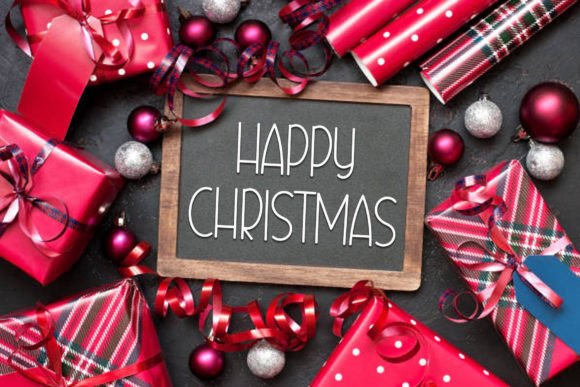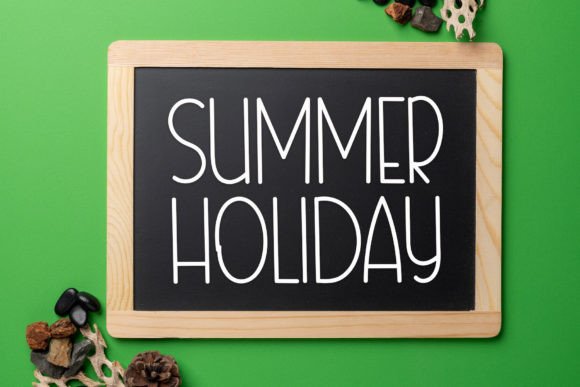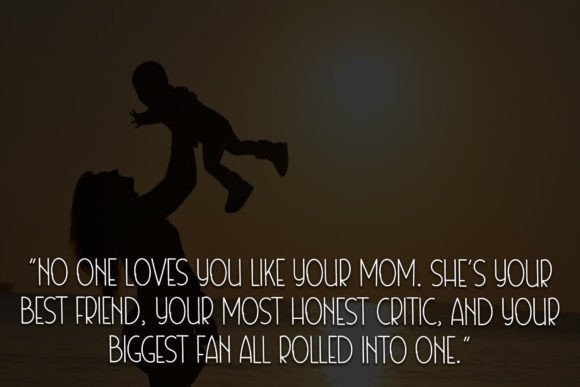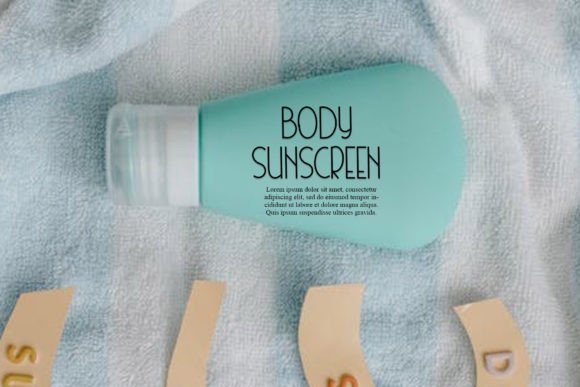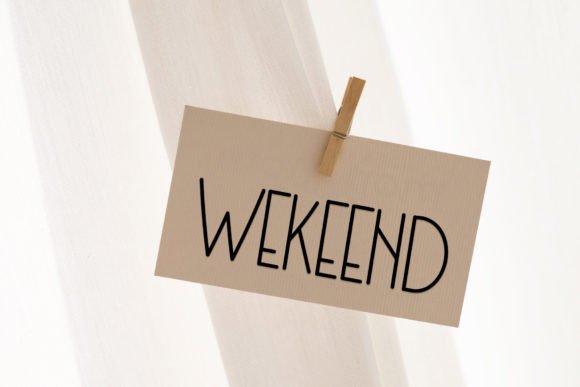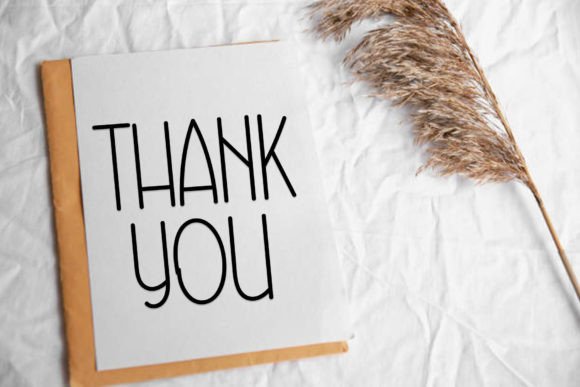
The Heroic Font: Elevating Your Designs with Elegance and Charm
I’ll never forget the moment I stumbled upon the HEROES font. I was working on a wedding invitation project, and my client was adamant about finding the perfect font that exuded elegance and sophistication. As I scrolled through my font library, I felt like I was searching for a needle in a haystack – until I saw HEROES. Its fluid strokes and natural flow captivated me, and I knew I had found the one. In this article, I’ll share my experience with the HEROES font, its features, and how to make the most of it in your designs.
- ✨ Elegant and sophisticated look that’s perfect for high-end designs
- ✅ Fluid strokes and natural flow that create a captivating visual effect
- 💫 Versatile and suitable for various design projects, from invitations to branding and social media
- 🎨 Ability to add a personal touch to designs, making them stand out
While HEROES is an amazing font, there are a few things to keep in mind:
- ⚠️ Some characters may not work well in very small sizes, so it’s best to use it at larger sizes (12pt or higher)
- 🤔 Limited availability of certain glyphs, but the standard character set is comprehensive
The HEROES font was designed with elegance and sophistication in mind. Its creator aimed to craft a font that would bring a sense of warmth and creativity to designs, while maintaining a level of refinement and poise. The result is a font that’s perfect for designers who want to add a personal touch to their work.
Q: What type of designs is HEROES best suited for?
A: HEROES is versatile and suitable for various design projects, from invitations and branding to social media and editorial designs.
Q: Is HEROES a script font?
A: No, HEROES is not a script font, but it has some elegant, cursive-like features that make it suitable for designs that require a touch of sophistication.